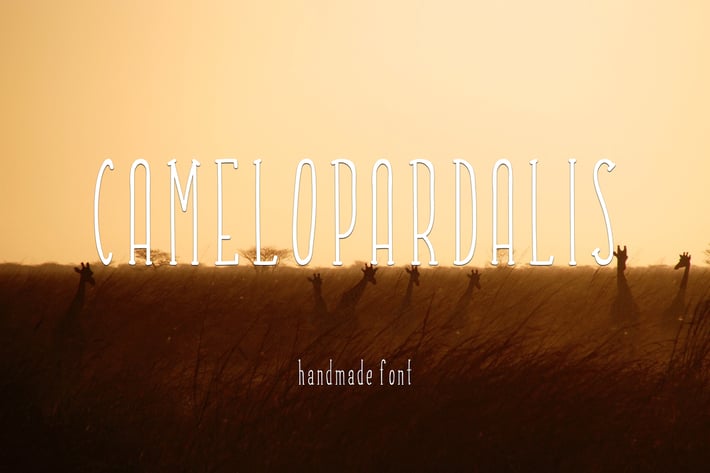
Camelopardalis Font
Camelopardalis is handwritten serif tall font perfect for food menu, quotes, blog header, poster, branding, logo, banner, etc.
ABCDEFGHIJKLMNOPQRSTUVWXYZ
ÀÁÂÃÄÅÇÈÉÊËÌÍÎÏÑÒÓÔÕÖØÙÚÛÜÝß
àáâãäåçèéêëìíîïñòóôõöøùúûüýÿ
ĄąČčĘęĖėĮįŠšŲųŪūŽž
.,:;!?’"‘’“”@_&#%+*-×÷=~/|(){}[]$¢€£¥